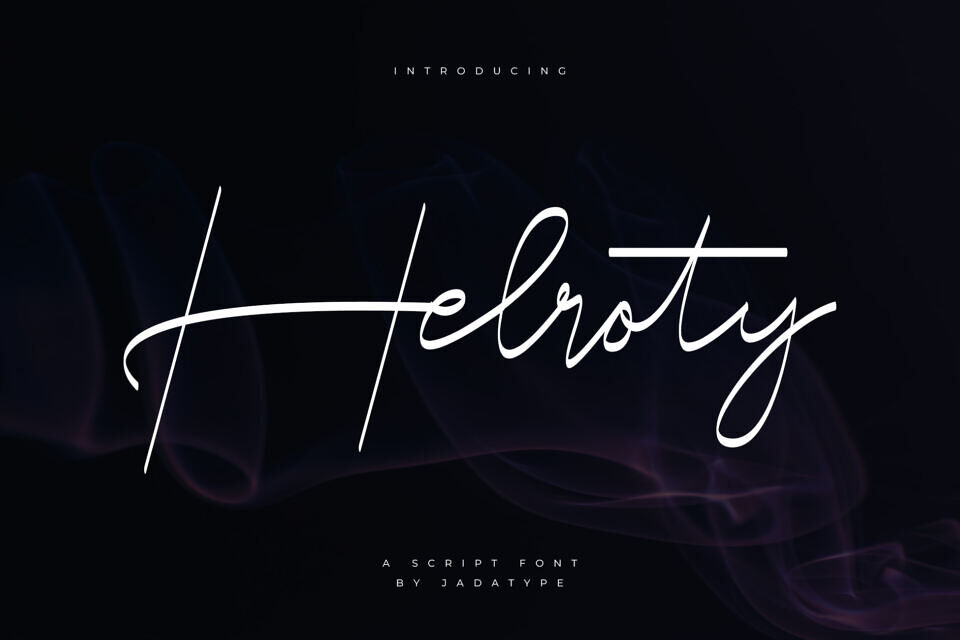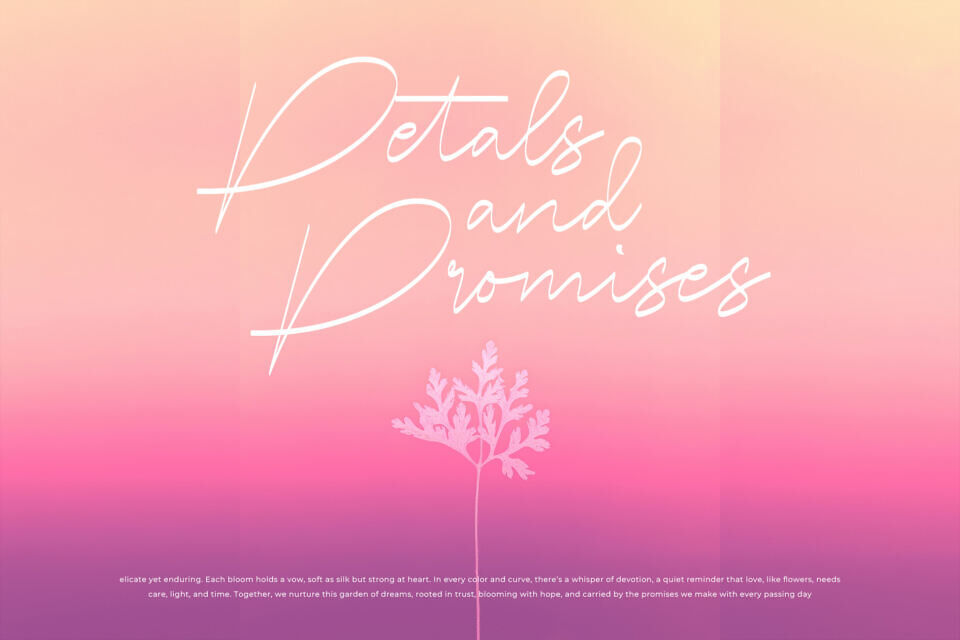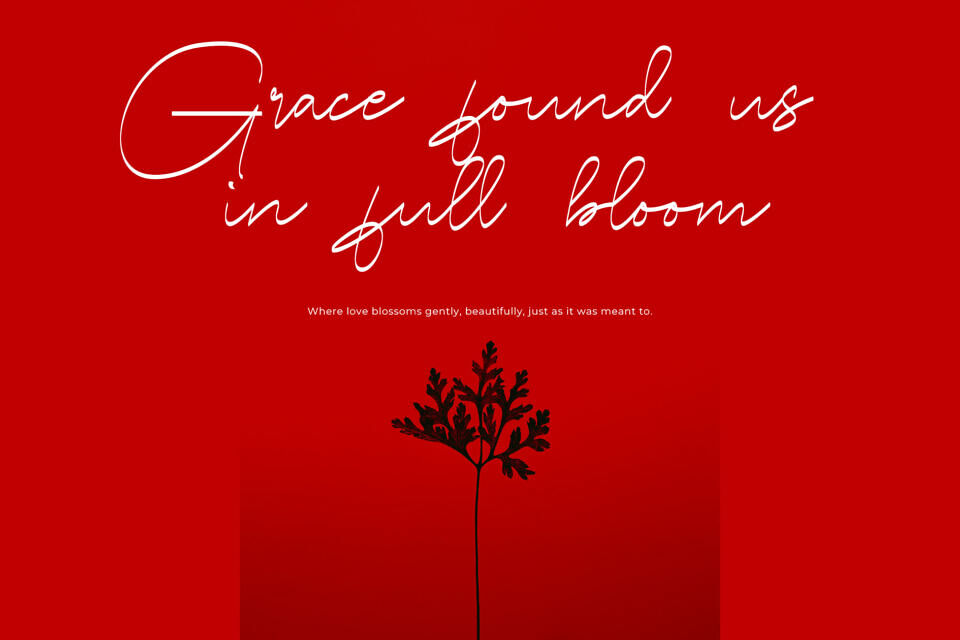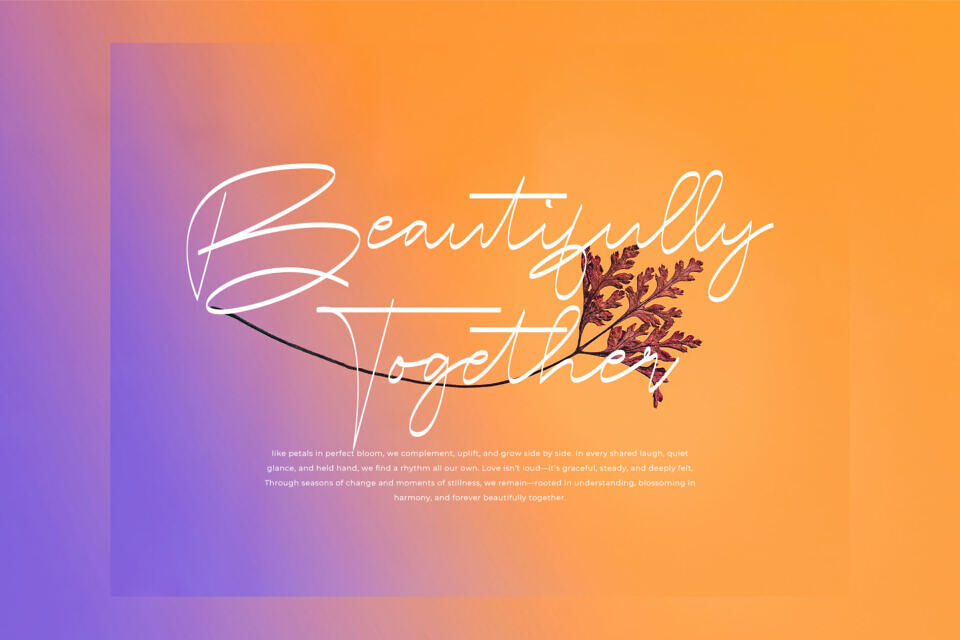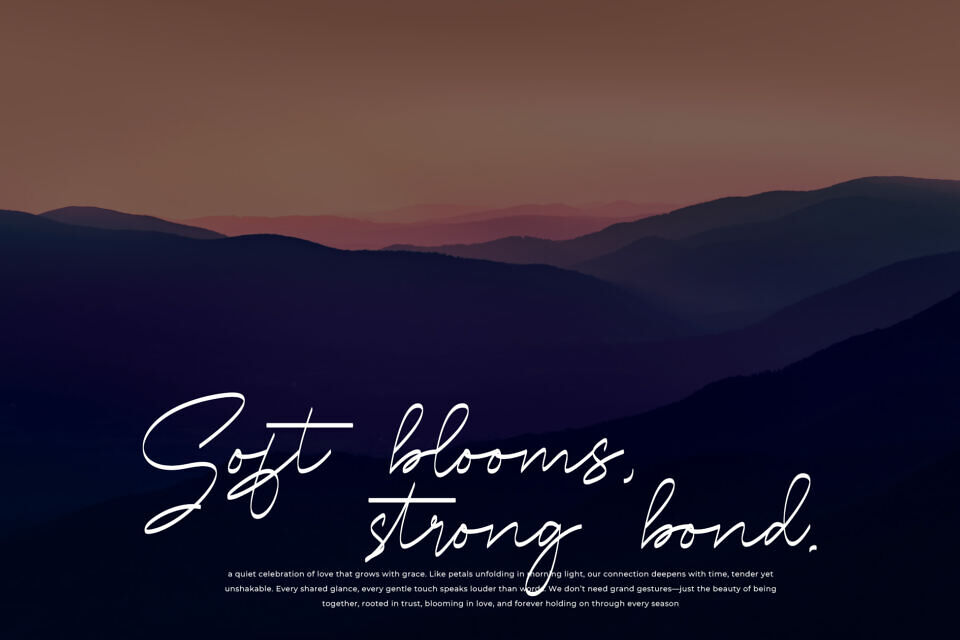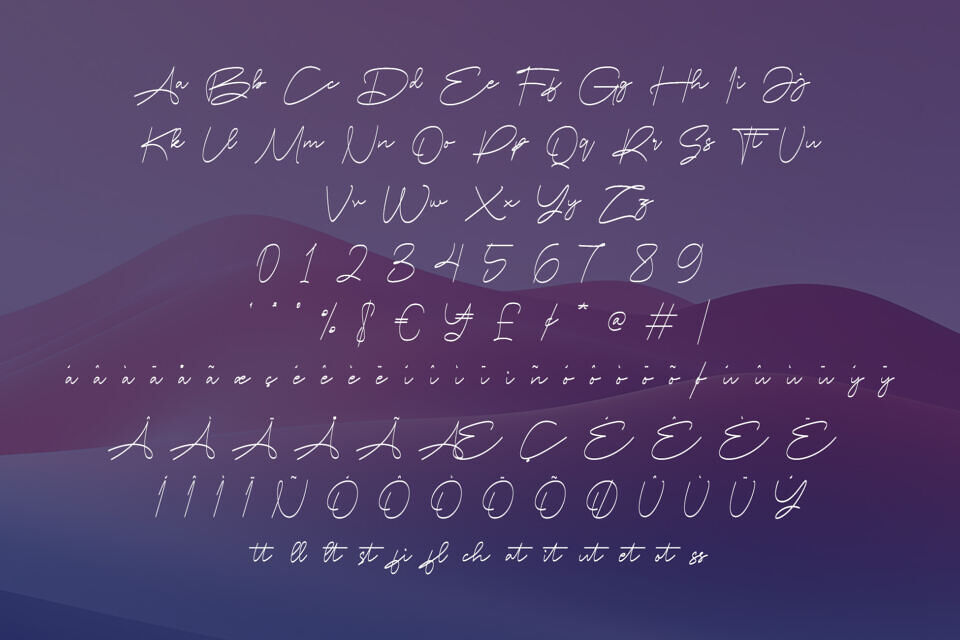
Helroty is a script font with signature style and a thin monoline style. Suitable for branding, social media, products, advertisement, and so on. Contains standard English letters, numbers, punctuation, ligatures and several accents that support multilingualism.